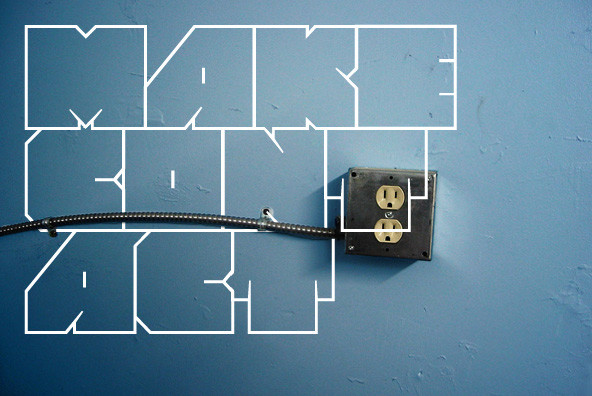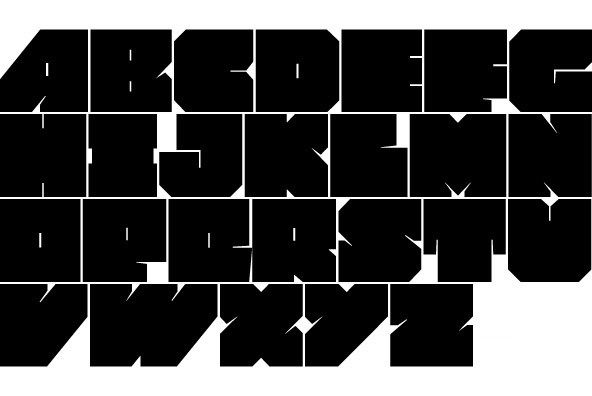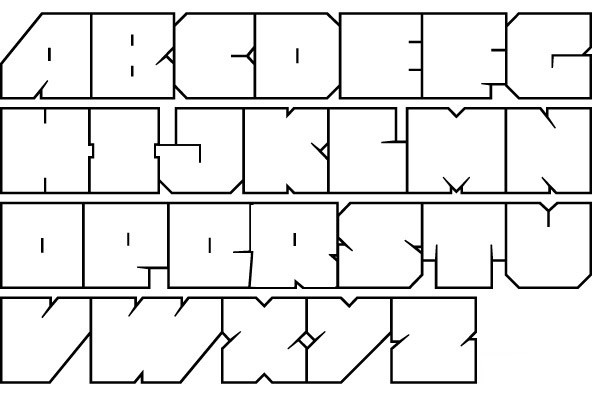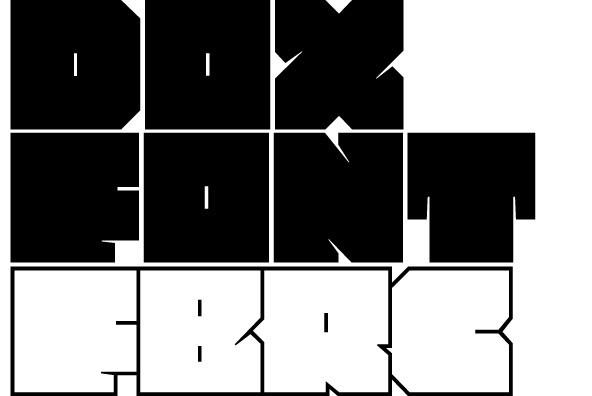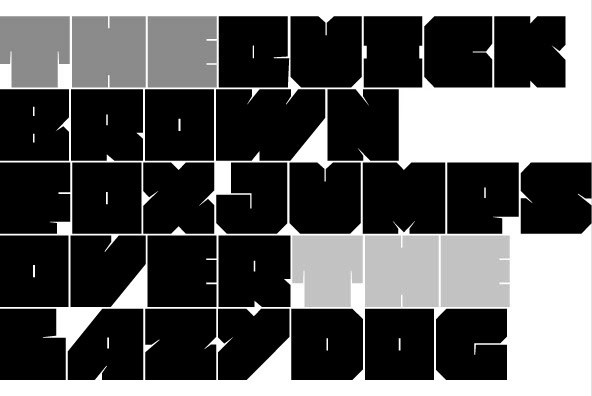
Dox is fresh contemporary looking font available in two styles - black and line. Perfect for any type of graphic design - web, print, motion graphics etc and perfect for t-shirts and other items.